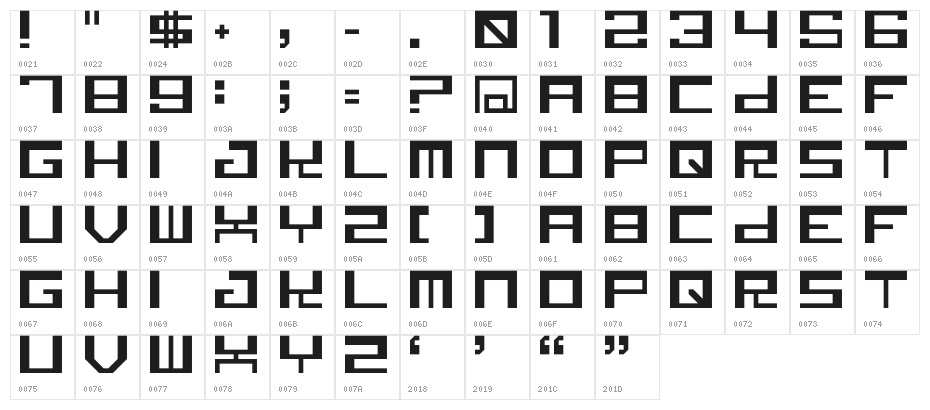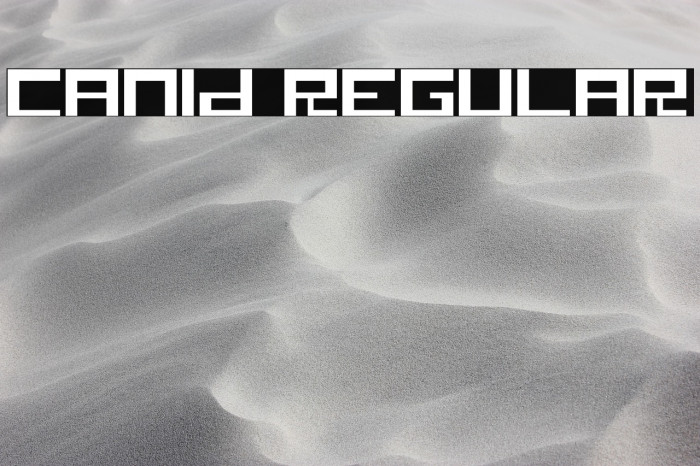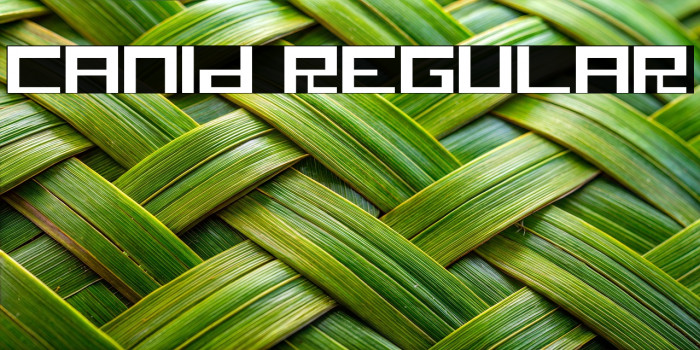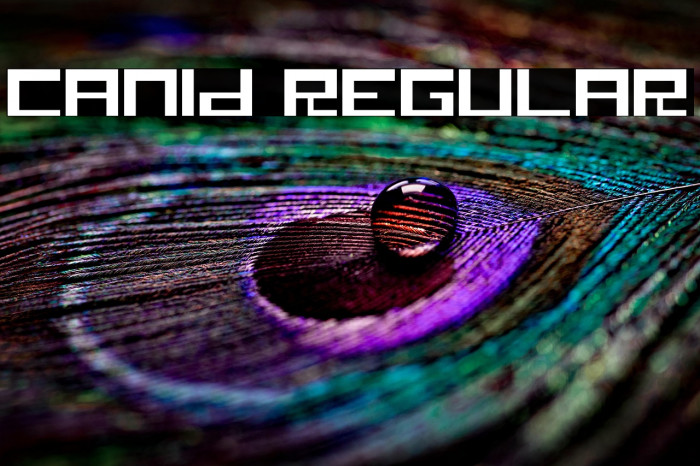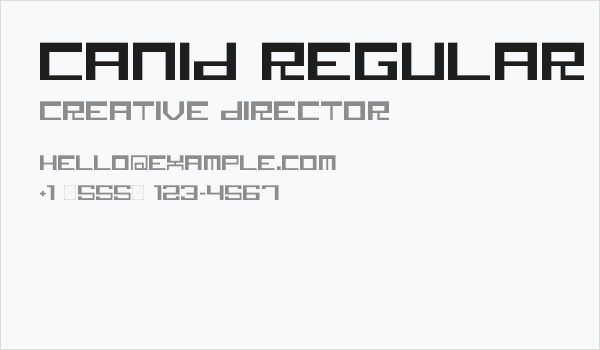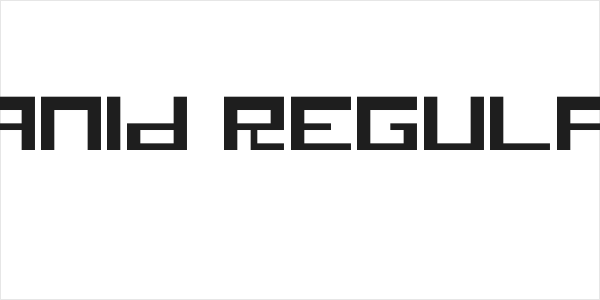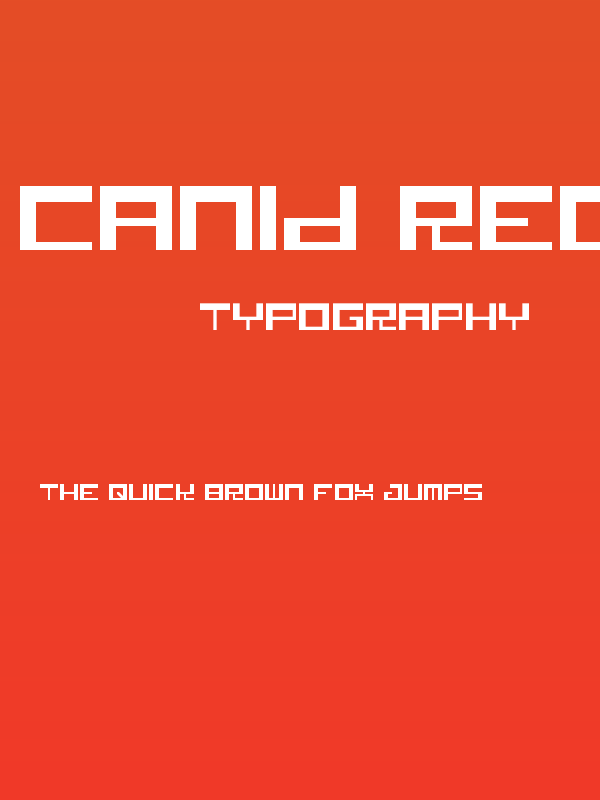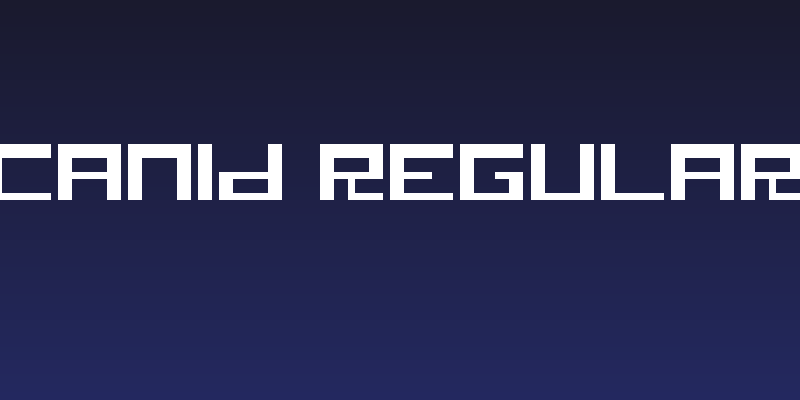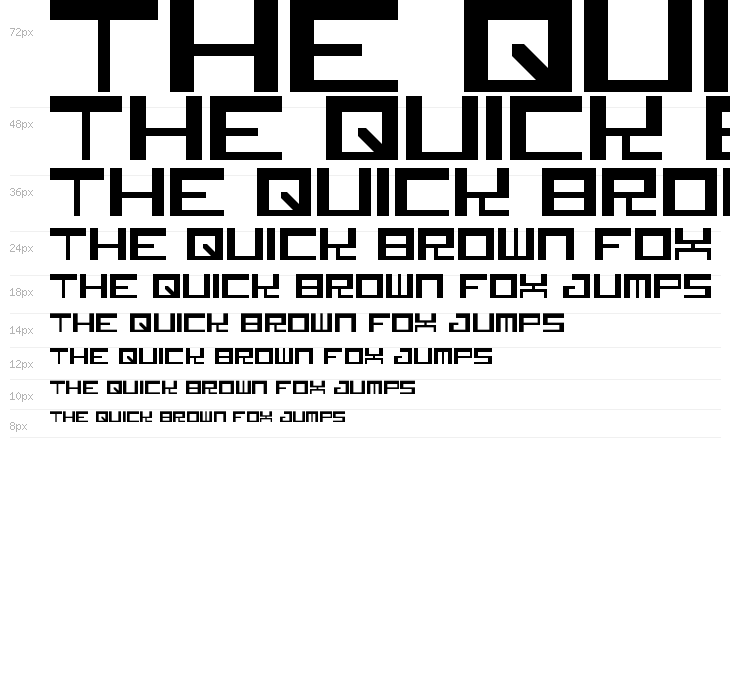
Canid Regular Font
Canid Regular Description
This font features a bold and geometric design with a futuristic aesthetic. Each character is constructed with sharp angles and straight lines, creating a sense of precision and modernity. The uppercase and lowercase letters share a consistent height, contributing to a uniform appearance. The numerals are equally bold and follow the same geometric style, ensuring readability and visual impact. Special characters are included, maintaining the overall design theme. This font is ideal for projects that require a strong, modern look with a touch of technological flair.